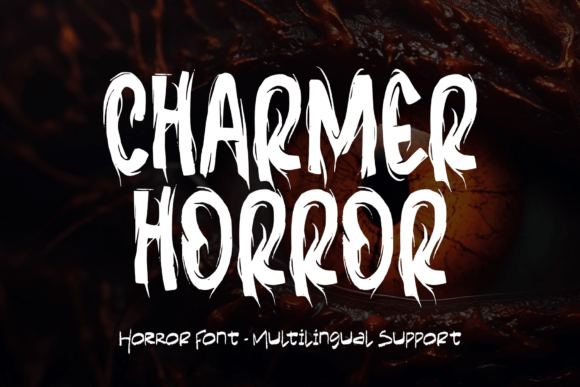
Unleash the Darkness: The Charmer Horror Font
Imagine yourself sitting in a dimly lit room, surrounded by flickering candles, and a faint chill running down your spine. The words on the screen in front of you seem to dance, vibrating with an otherworldly energy. This is the experience that the Charmer Horror font provides, transporting you to a realm of eerie fascination. This type of lettering masterfully combines elements of horror with a touch of mysterious hallucination, perfect for creating a chilling atmosphere in your designs.
The Charmer Horror font is a valuable tool for designers, allowing them to craft haunting narratives and captivating visuals that leave a lasting impression. With its unique blend of tension and uncertainty, this font is ideal for horror movie posters, spooky storybooks, and promotional materials for scary events. Whether you’re a seasoned designer or a creative enthusiast, the Charmer Horror font is sure to add an unforgettable touch to your work.
Charmer Horror Font Key Features
- Font Style: Charmer Horror is a unique, hand-drawn horror font that combines elegant and eerie elements, perfect for adding a touch of darkness to your designs.
- Unique Characteristics: Features intricate details, such as hand-drawn textures, subtle shading, and eerie atmospheres, making it ideal for horror-themed designs, such as book covers, movie posters, and video game titles.
Designer Review: Charmer Horror Font
When I first laid eyes on the Charmer Horror Font, I was immediately drawn in by its ✨ eerie and whimsical vibe. The font’s unique blend of gothic and cursive elements creates a captivating atmosphere that’s perfect for anything from spooky stories to mystical tales.
- ✨ Distinctive aesthetic: The font’s blend of gothic and cursive elements makes it instantly recognizable and memorable.
- ✨ Versatility: Charmer Horror Font can be used for a wide range of projects, from horror novels to fantasy comics.
- ✨ High-quality design: The font’s typography is well-designed and easy to read, even in smaller font sizes.
- ⚠️ Limited legibility: In certain situations, the font’s more intricate elements can make it difficult to read, especially for those with visual impairments.
- ⚠️ Limited font sizes: While the font looks great in larger sizes, it can become pixelated and hard to read when used in smaller sizes.
Overall, I think the Charmer Horror Font is a great addition to any designer’s toolkit. While it may have some limitations, its unique aesthetic and versatility make it a compelling choice for a wide range of projects. Just be sure to use it thoughtfully and consider the needs of your audience.
Getting the Most Out of Charmer Horror Font
To get the most out of Charmer Horror Font, use it sparingly to add a touch of eeriness to your designs.
Pair it with dark colors and bold graphics to create a haunting atmosphere.
Charmer Horror Font is perfect for:
- Halloween-themed designs.
- Horror movie posters.
- Spooky website headers.
- Creepy social media graphics.
Alternatives to Charmer Horror Font
Creepster
Creepster is a horror-themed font that features a creepy and eerie feel. It’s perfect for designers who want to create a sense of unease or foreboding in their designs. Creepster has a more subtle and refined look compared to Charmer Horror Font, making it a great choice for projects where a more understated horror theme is needed.
Haunted House
Haunted House is a bold and spooky font that’s perfect for designers who want to create a sense of excitement or fear in their designs. It’s more aggressive and attention-grabbing than Charmer Horror Font, making it a great choice for projects where a stronger horror theme is needed. Haunted House features a more distressed and worn look, adding to its spooky feel.